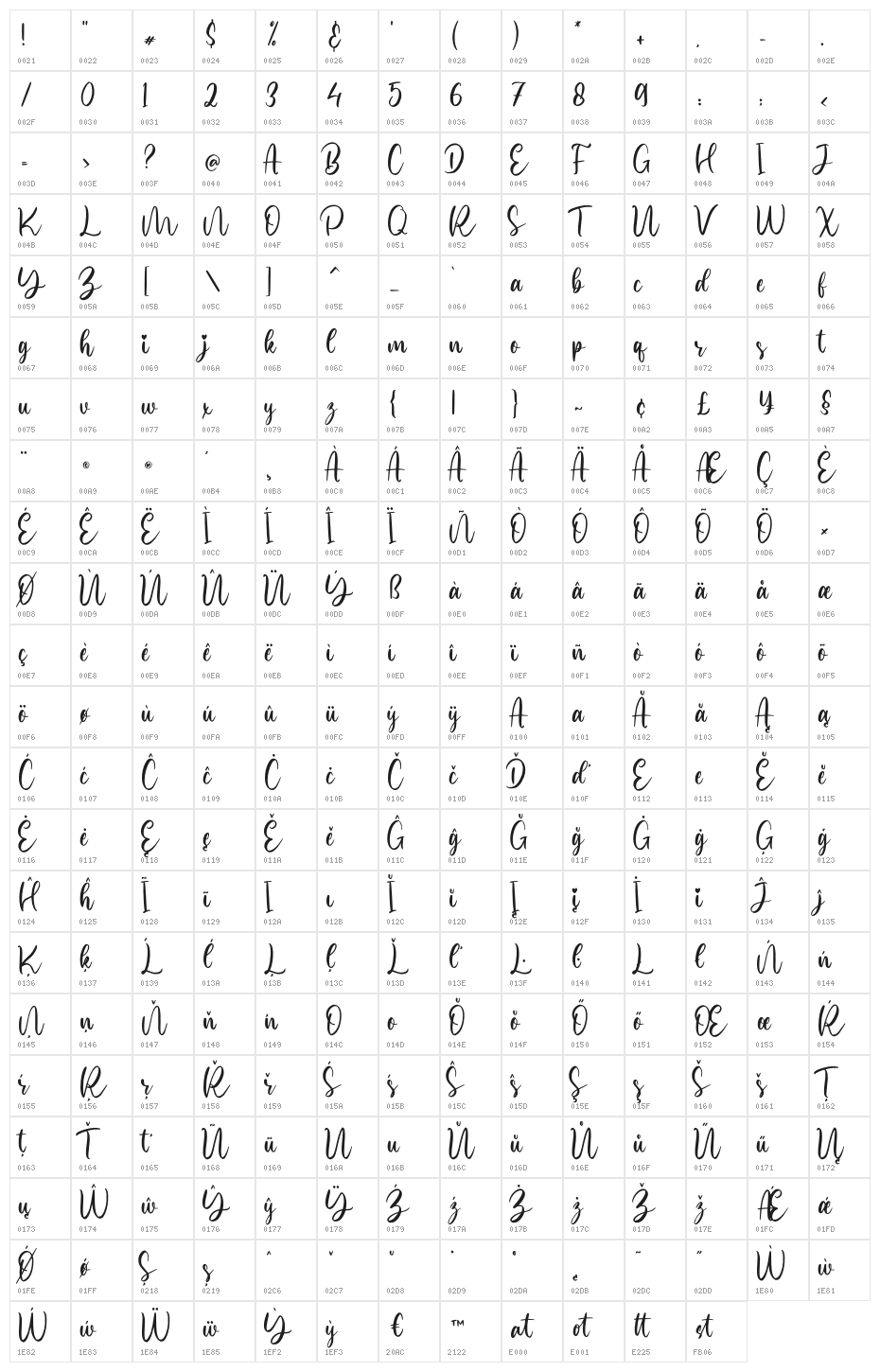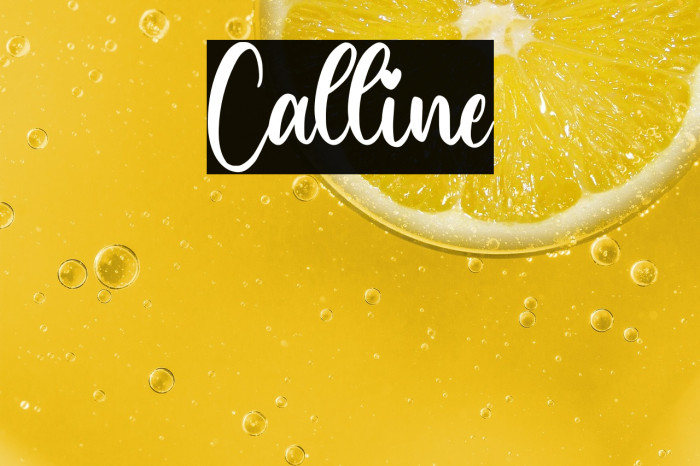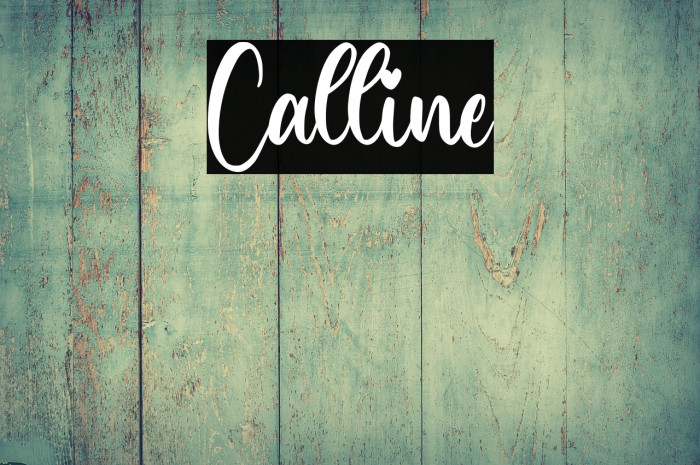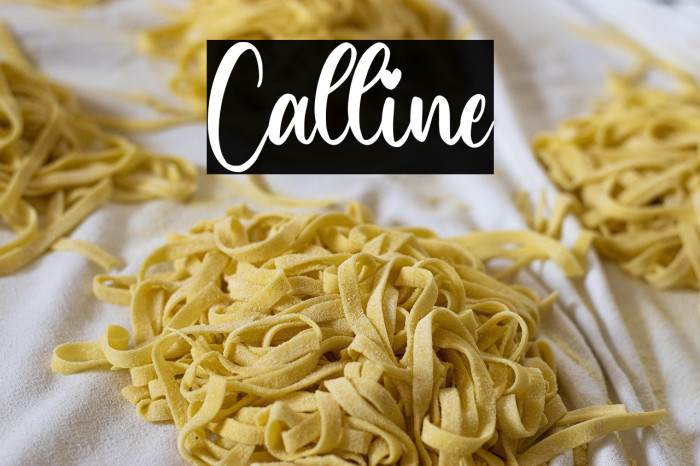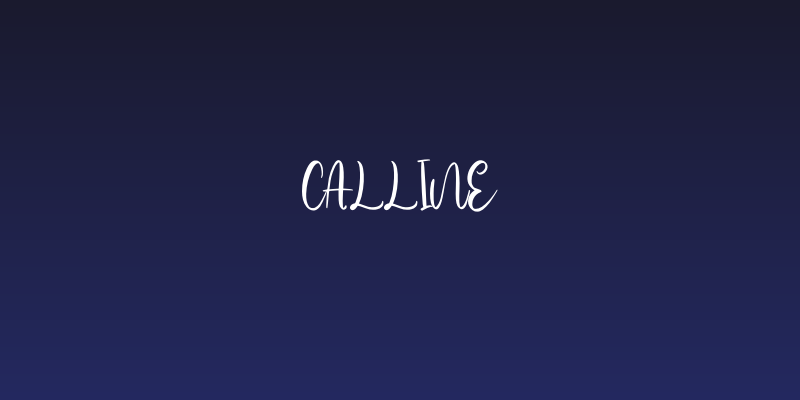
Calline Font
Calline Description
This font features a lively and expressive script style with a handwritten appearance. The uppercase letters are bold and flowing, with a playful yet elegant touch. The lowercase letters maintain a consistent rhythm, enhancing readability while retaining a personal feel. Numbers and special characters are designed to complement the overall style, ensuring versatility across various applications. The strokes are smooth and connected, giving a sense of movement and fluidity. This font is perfect for projects that require a personal, friendly, and approachable aesthetic.
| Use Case | Logos, Headlines, Invitations |
| Proposed Projects | Ideal for invitations, greeting cards, branding, and social media graphics. |